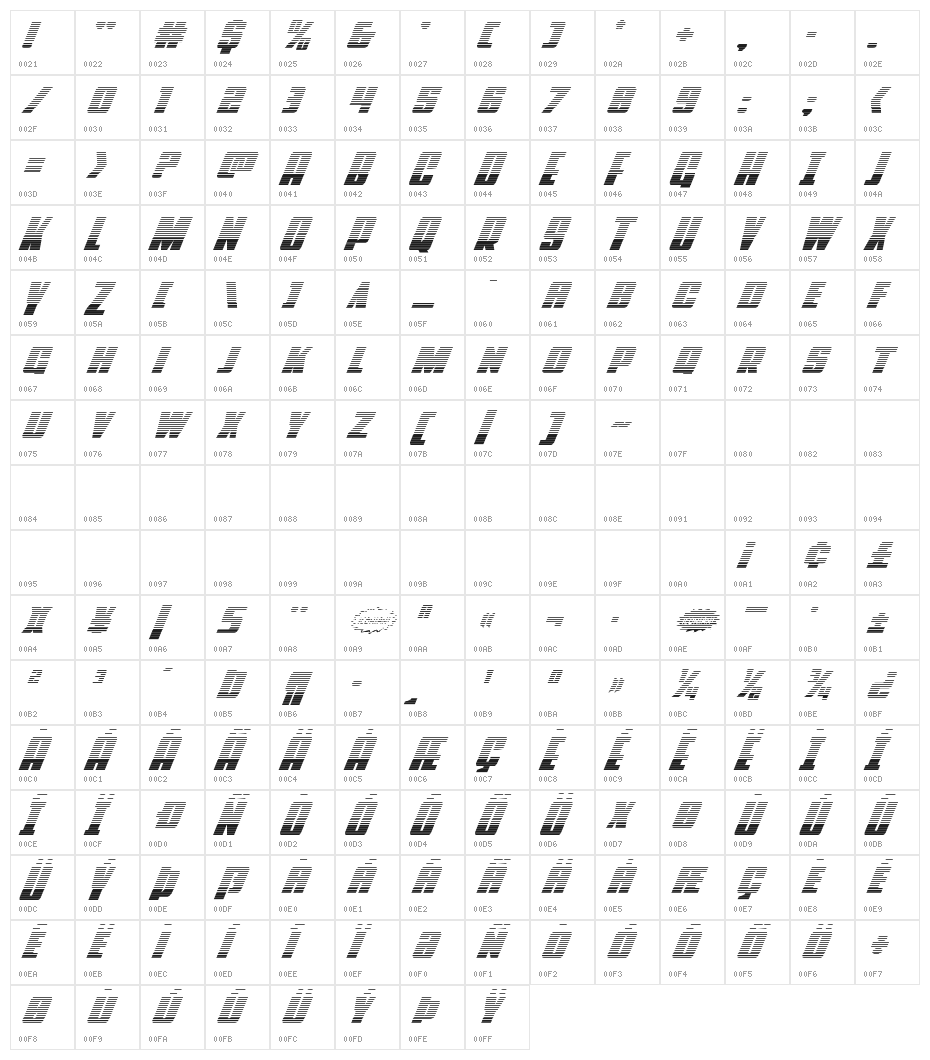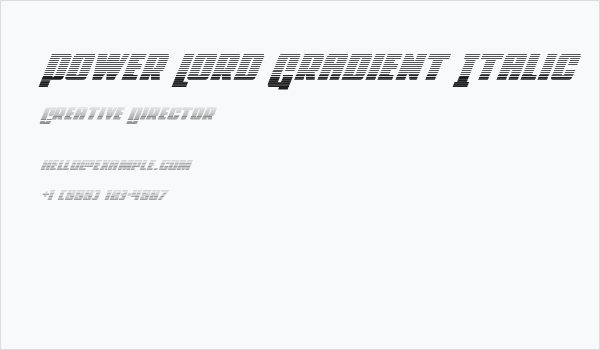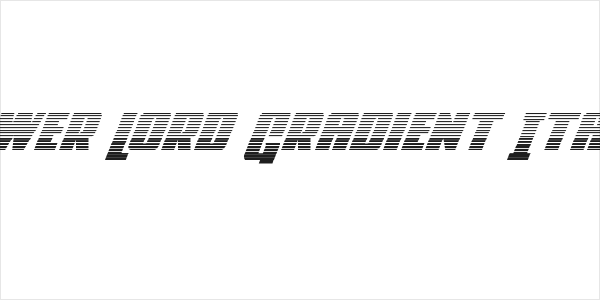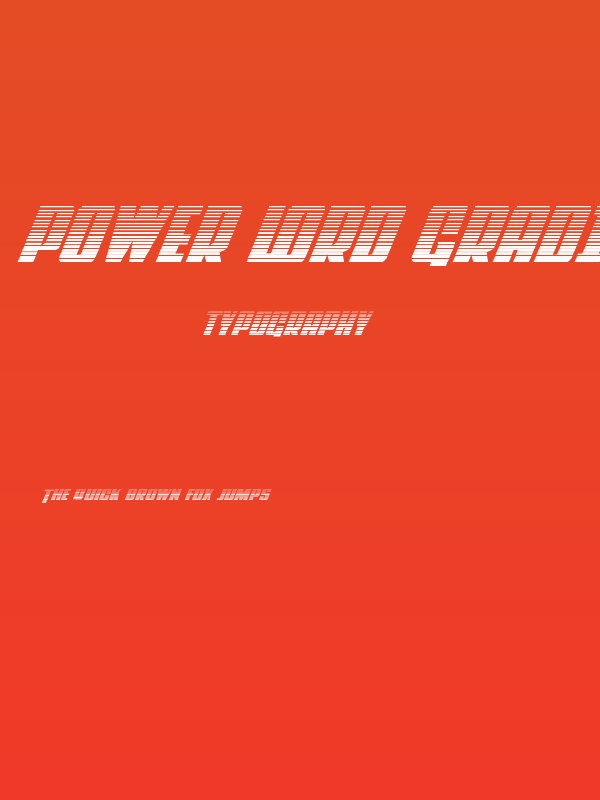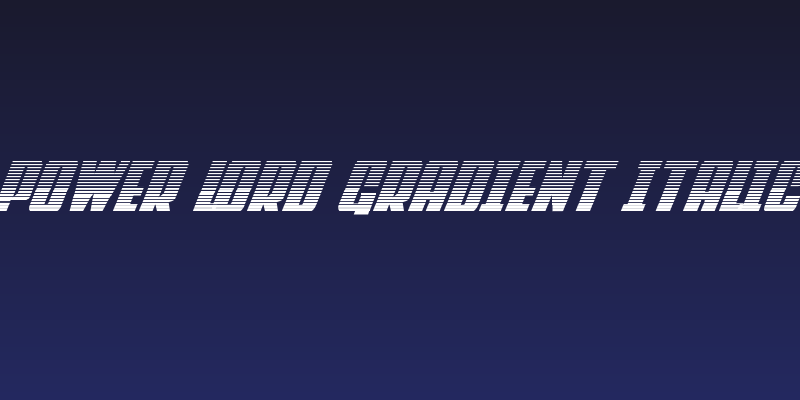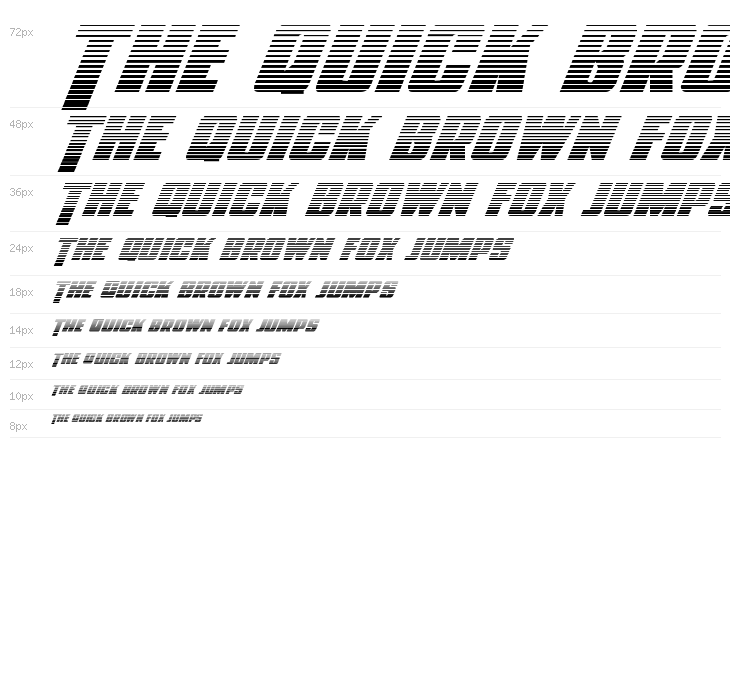
Power Lord Gradient Italic Font
Power Lord Gradient Italic Description
This font features a bold and dynamic design with a distinctive gradient effect that gives each character a sense of movement and energy. The italicized style adds a slanted, forward-leaning appearance, enhancing its modern and futuristic look. The characters are composed of horizontal lines that create a gradient from top to bottom, providing a unique visual texture. This design is particularly eye-catching and suitable for projects that require a strong, impactful presence. The uppercase and lowercase letters maintain consistent styling, while the numerals and special characters are designed to complement the overall aesthetic.
| Proposed Projects | Ideal for sports branding, futuristic designs, video game titles, and dynamic posters. |